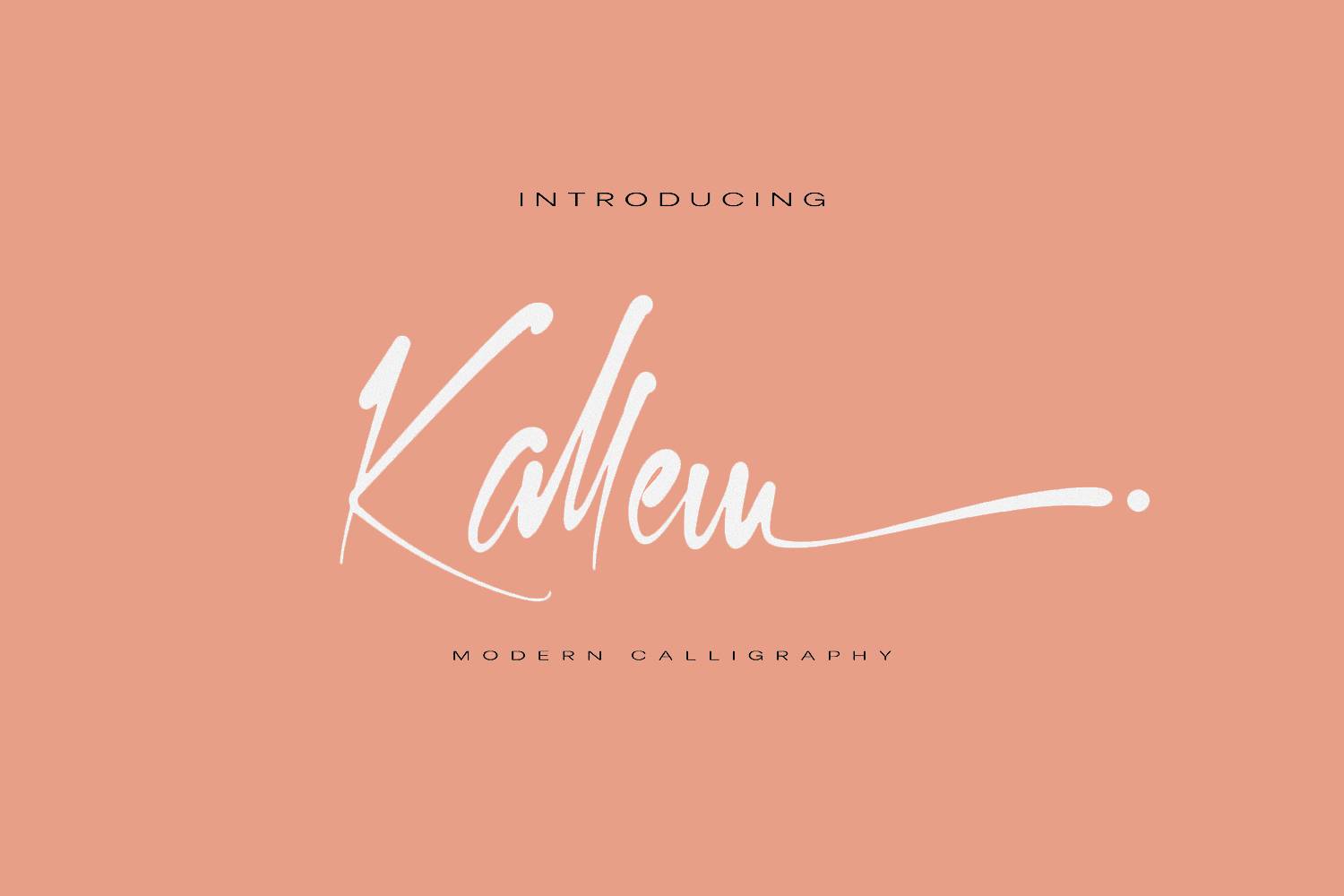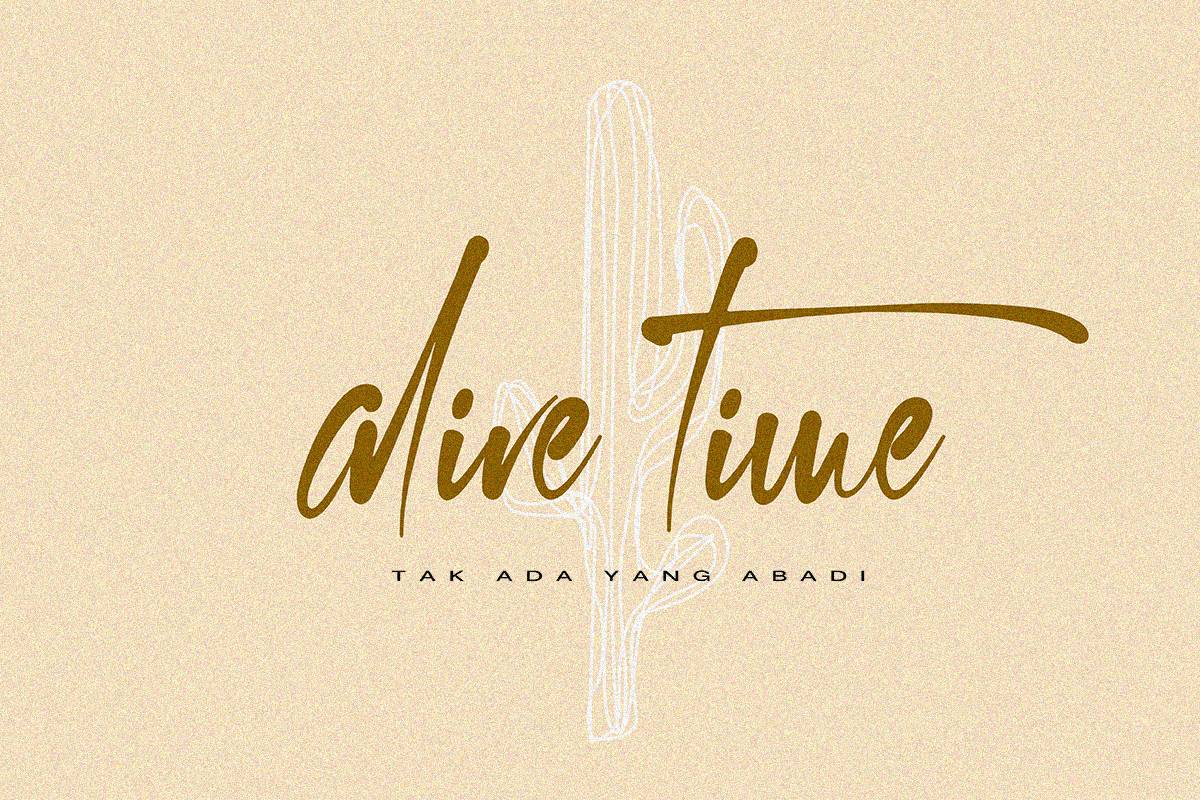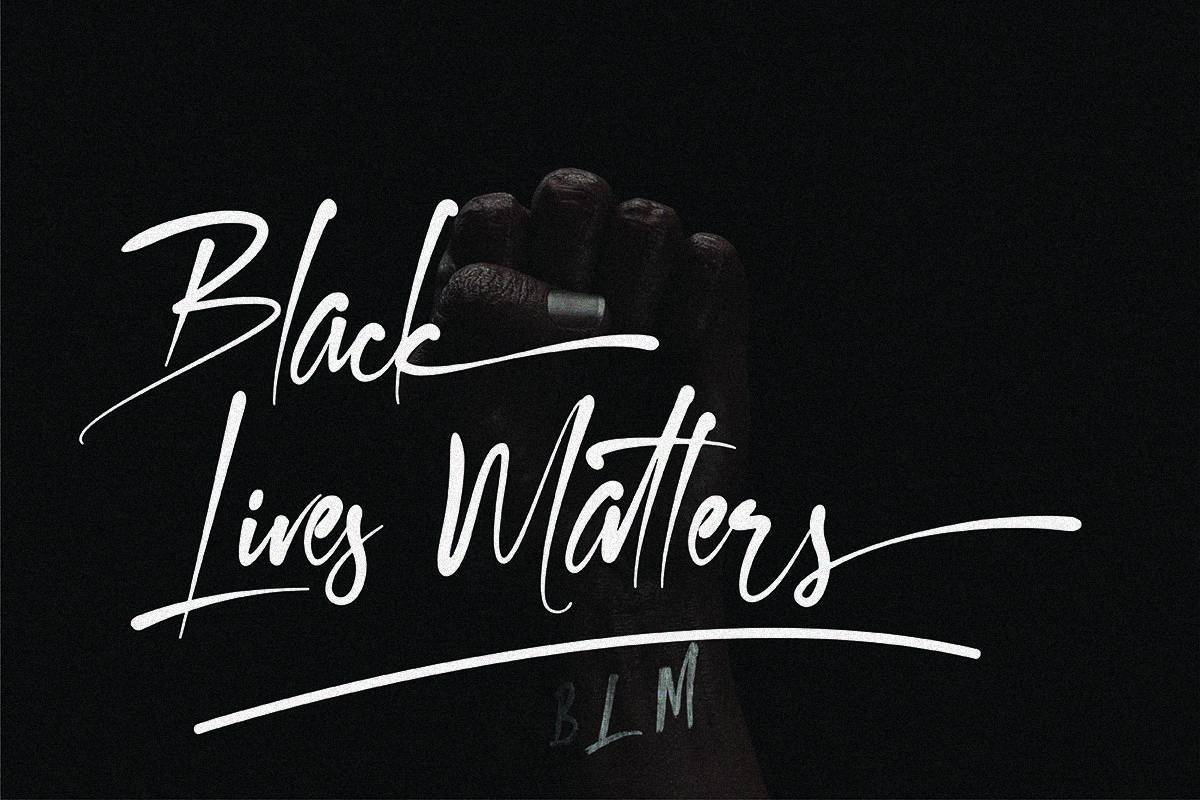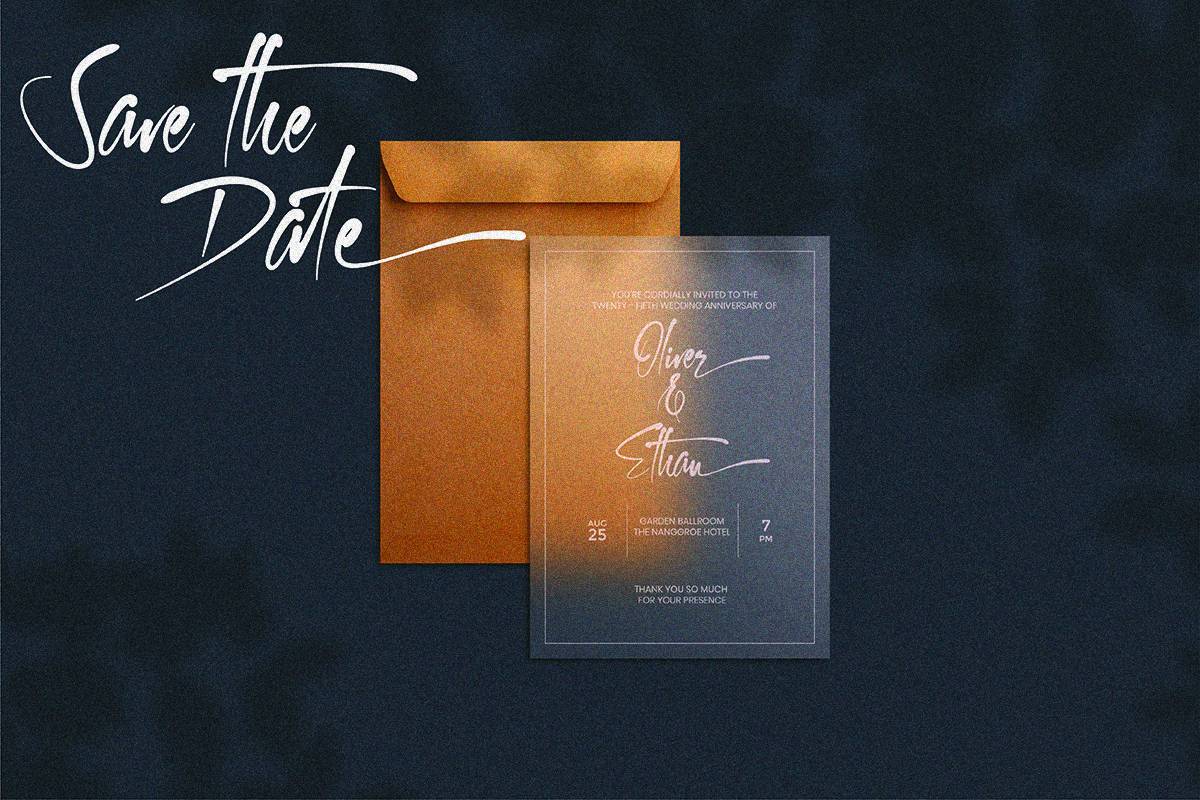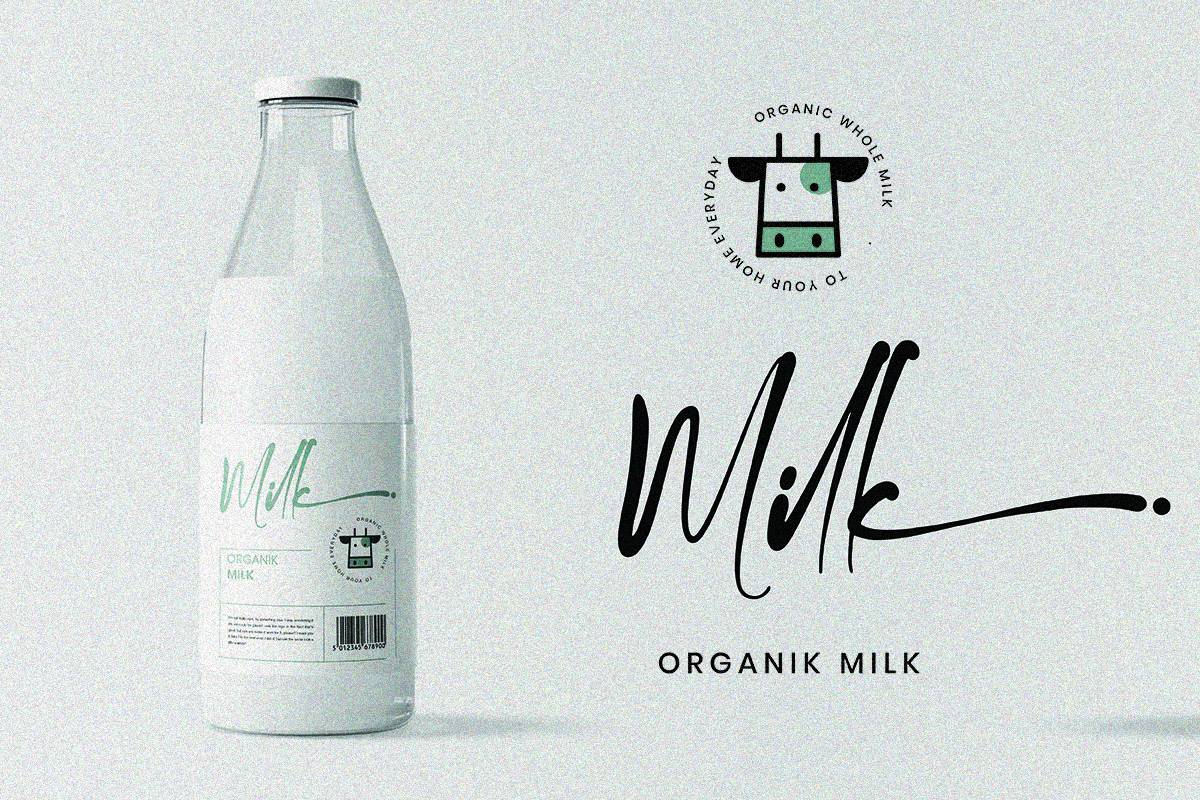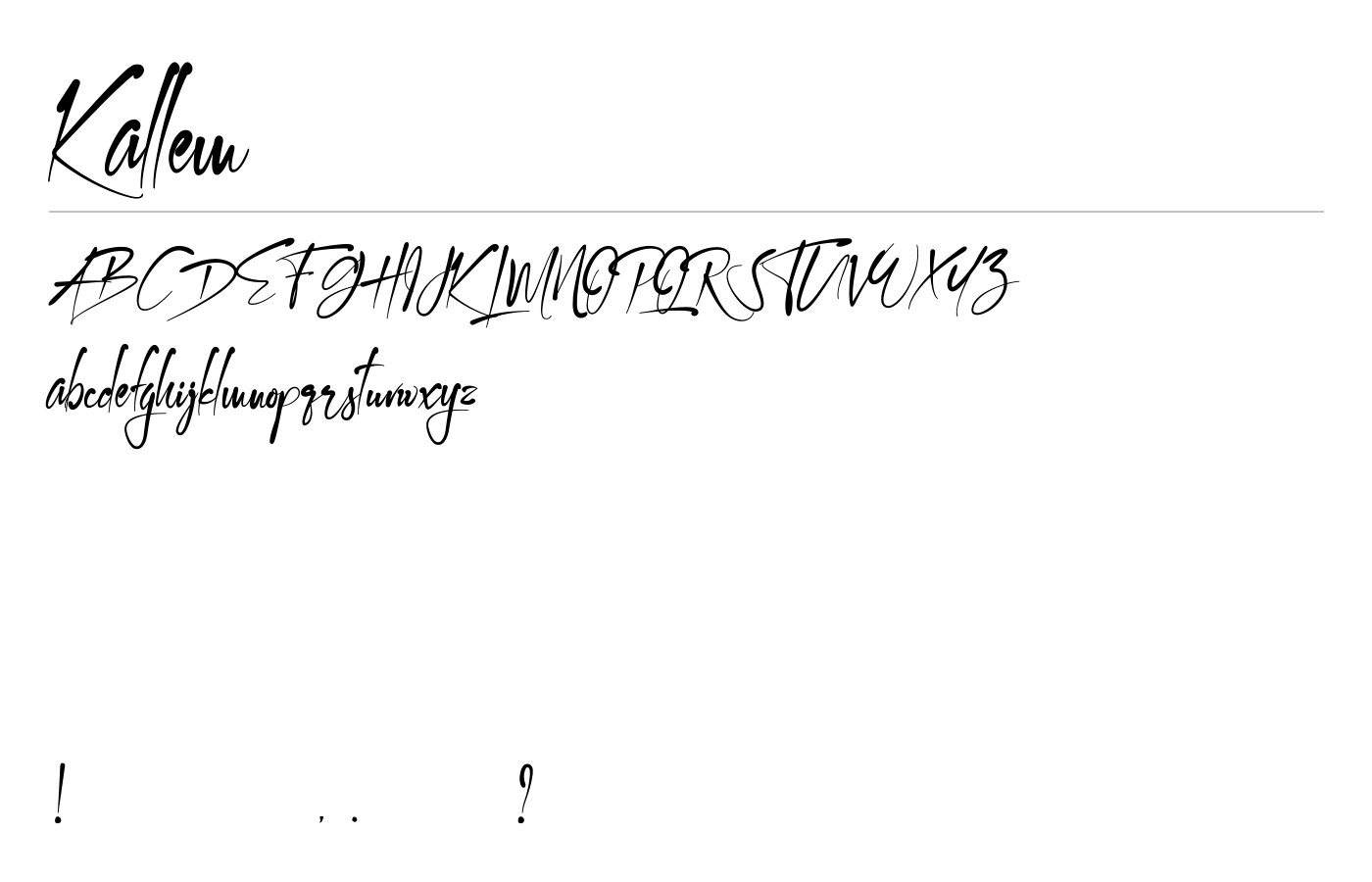
Kallem Script is a lively, handwritten script font with a modern and energetic feel. Its slender, flowing strokes and slightly irregular shapes give it a personal and artistic touch, making it ideal for creative branding, invitations, and stylish headlines. This font works well when you want to add a sense of warmth and individuality to your designs.
Kallem Script Font
About Kallem Script Font